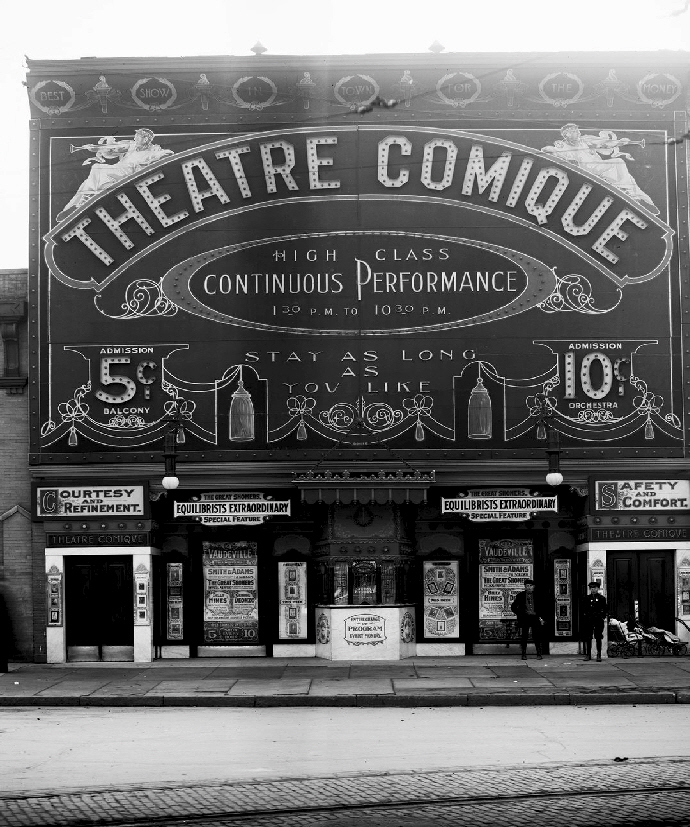
THEATRE COMIQUE SIGN
I BELIEVE THIS IS IN DETROIT, MI. CIRCA 1920.
NOTICE THE WORKERS AT THE BOTTOM OF THIS PICTURE.
I WOULD GUESS THIS SIGN IS 40 FEET TALL OR MORE.
ALL I CAN SAY IS WOW. NICE WORK !